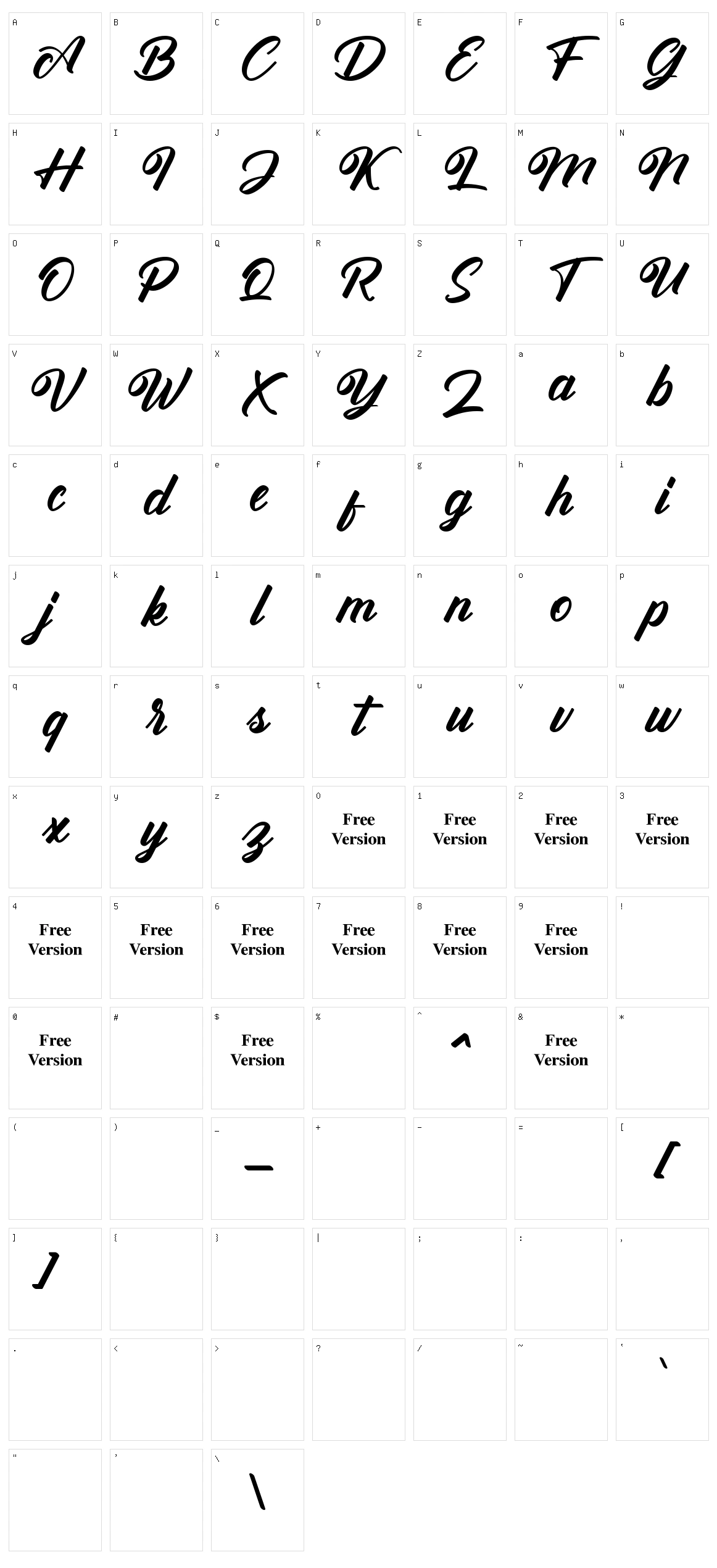
The free font Antonellie Calligraphy is carefully designed by Ketikata Studio, showcasing a thoughtful balance of creativity and usability and falls under the Script font style. When you download the ZIP file, it contains only 90 KB of font files, making it lightweight and quick to download. Please review the license details below to understand permitted usage and distribution rights. If license information is not available, we recommend using this font for personal projects only or contacting the author directly for commercial usage permissions.